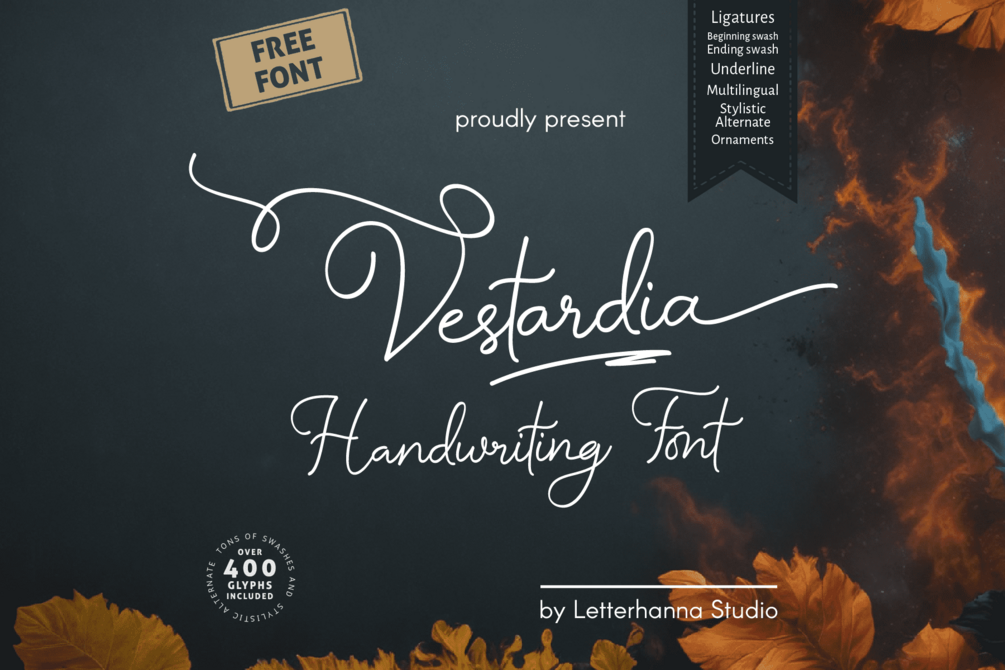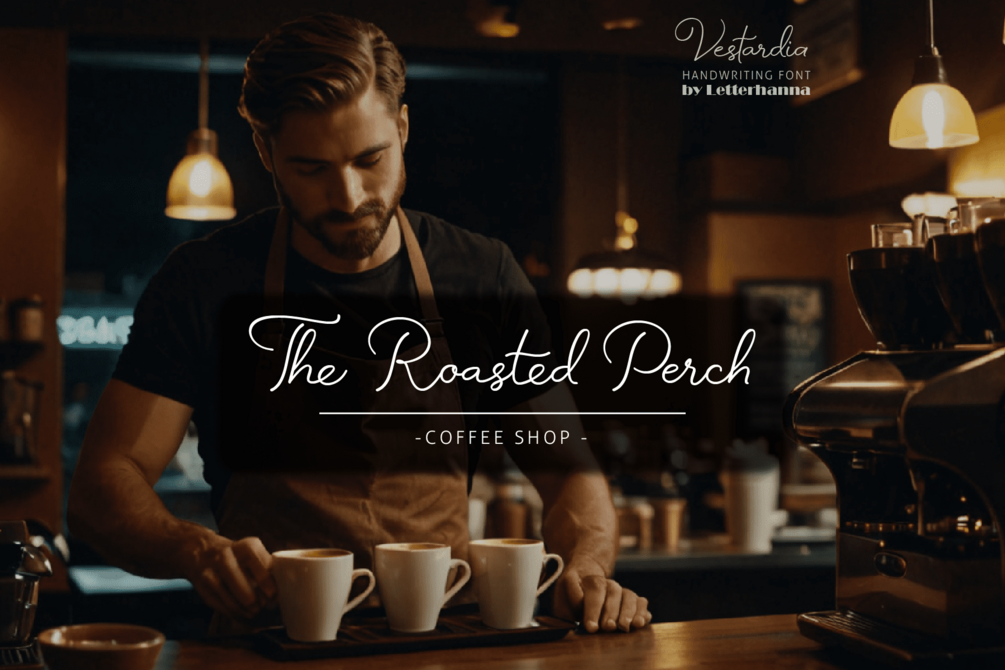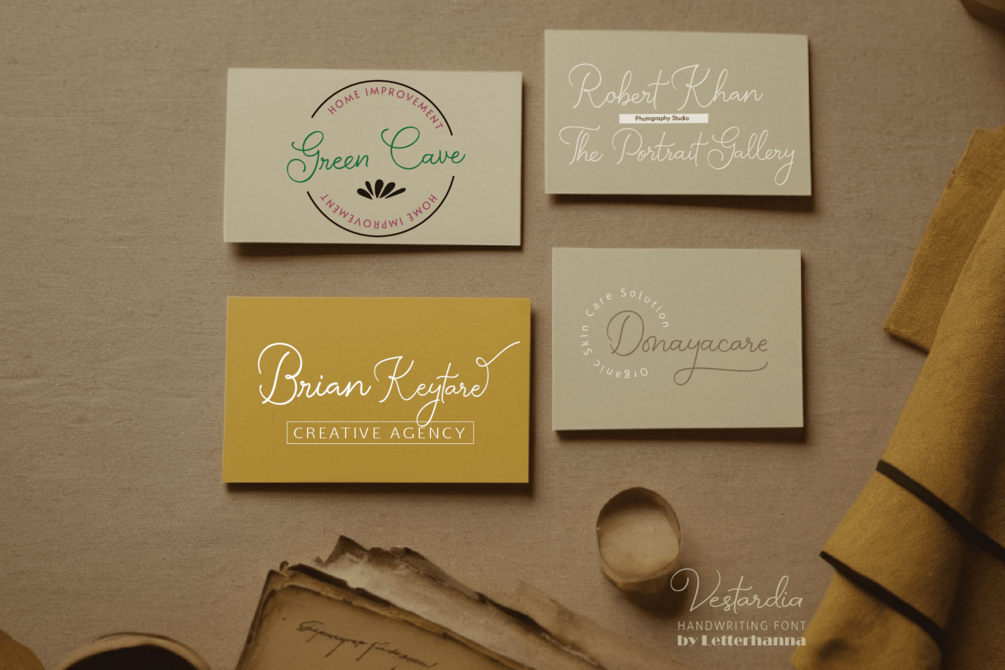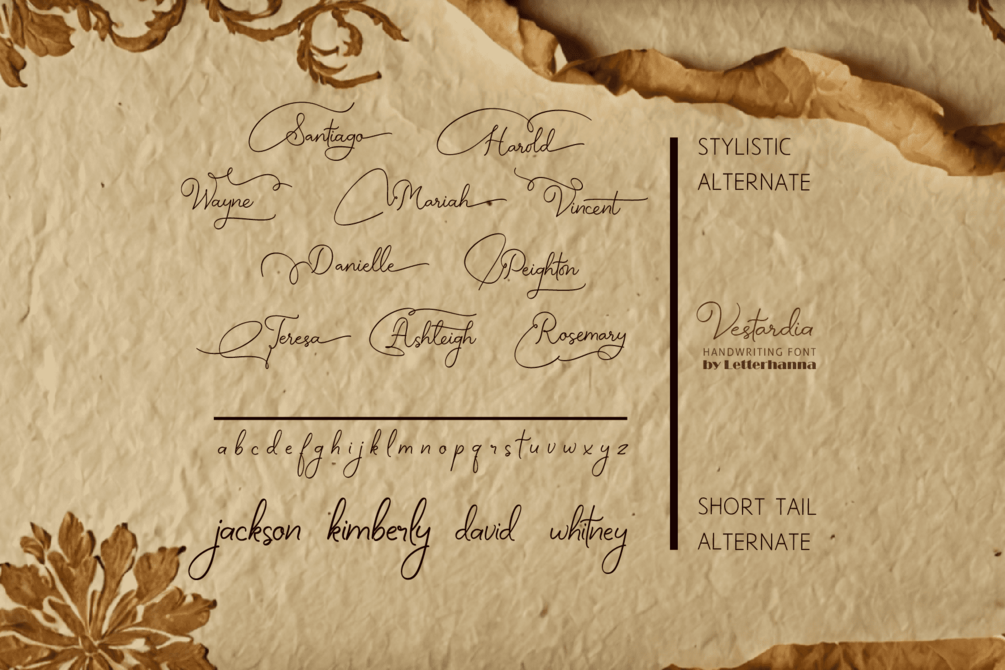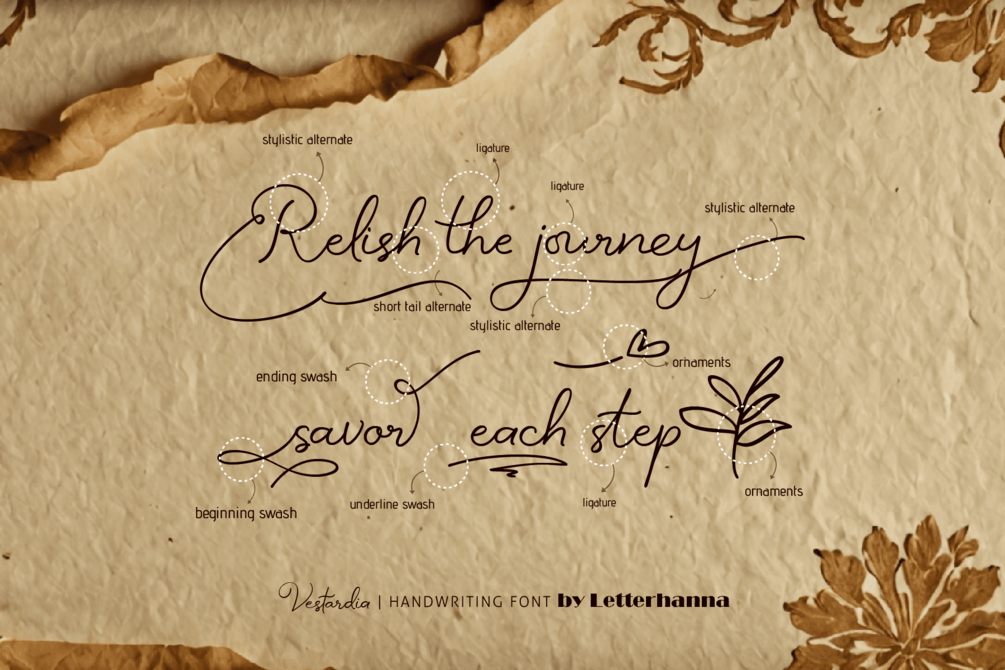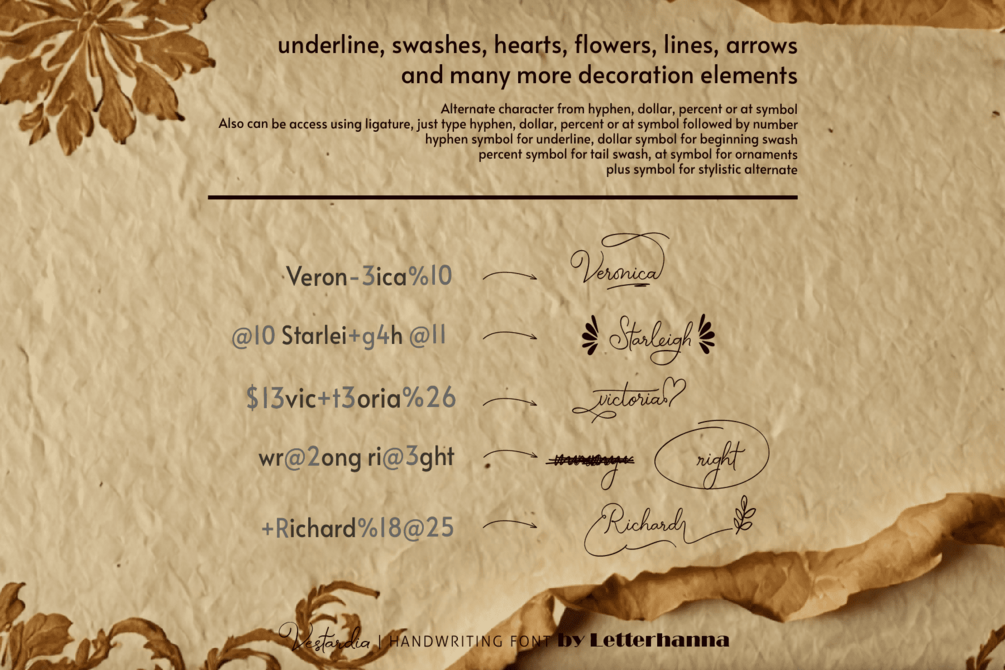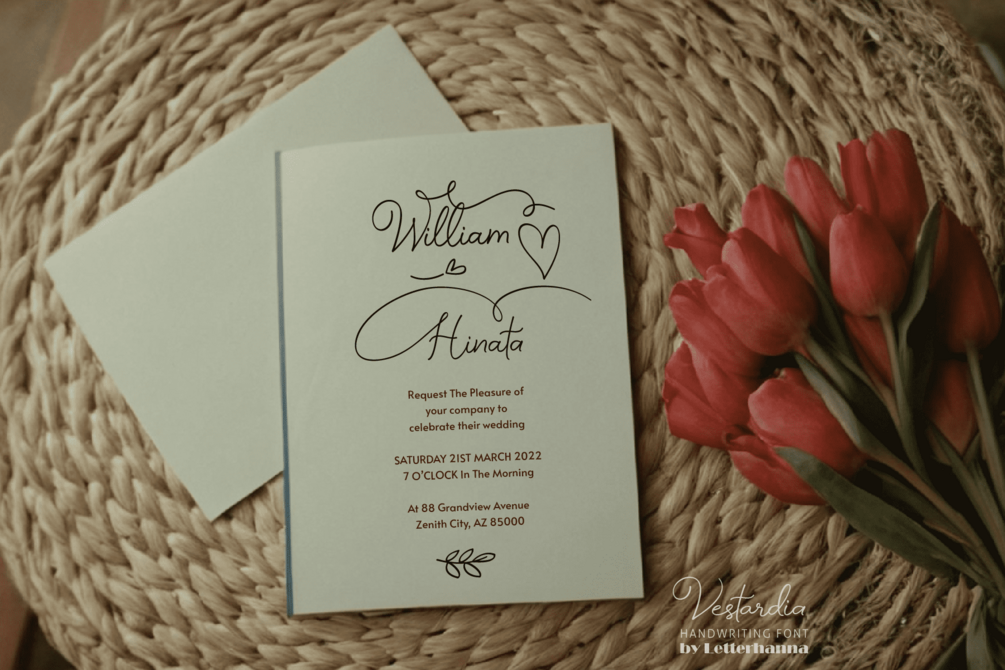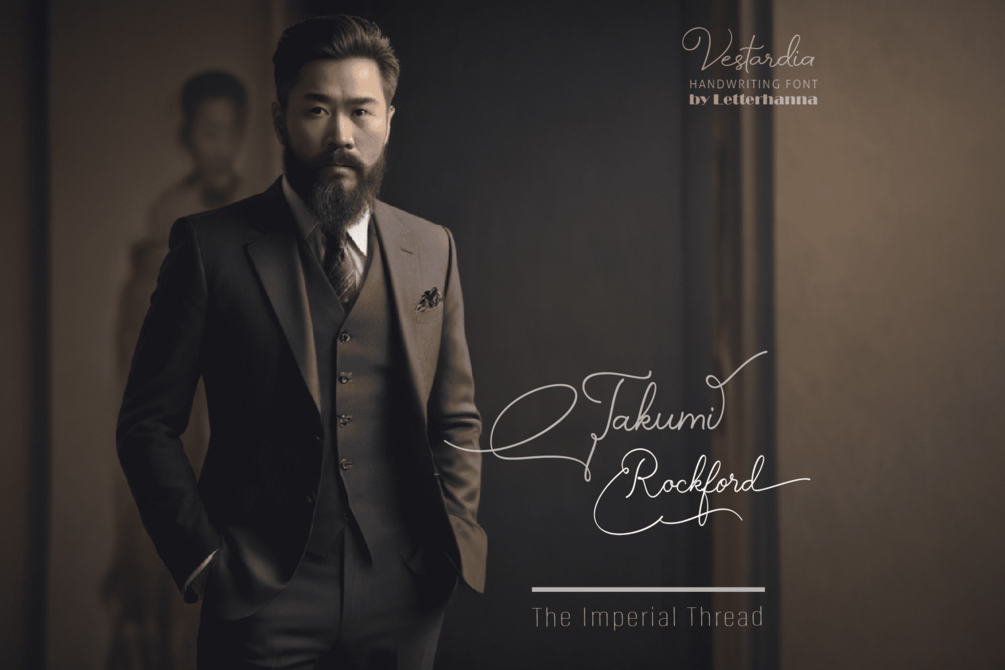
Vestardia Free Font
Unleash your inner calligrapher with Vestardia!
This captivating new handwriting script font transcends the ordinary. Vestardia boasts a treasure trove of stylistic alternates, swashes, and ligatures. These design flourishes dance across the page, allowing you to craft text with effortless elegance and a touch of whimsy. It's perfect for adding a personal touch to wedding invitations, heartfelt letters, or captivating social media posts.
Accessing Stylistic Alternates
Stylistic alternates can be accessed by typing a plus symbol "+" in front of the original letter. For example, type "+a" to get the stylistic alternate of the letter a.
• Uppercase and lowercase letters
• Numbers and punctuation marks
• Multilingual support
• Ligatures
• Beginning and ending swashes
• Underline swashes
• Stylistic alternates
• Ornaments
• Easy access to swashes using ligatures